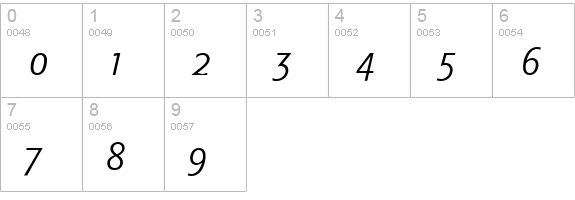
Formata Light Condensed Italic Small Caps & Oldstyle Figures Font Details
Formata Light Condensed Italic Small Caps & Oldstyle Figures is a refined, elegant, condensed-width, italic variant in the Formata typeface family \xE2\x80\x94 well suited to elegant body text, refined sub-headings, and luxury branding.